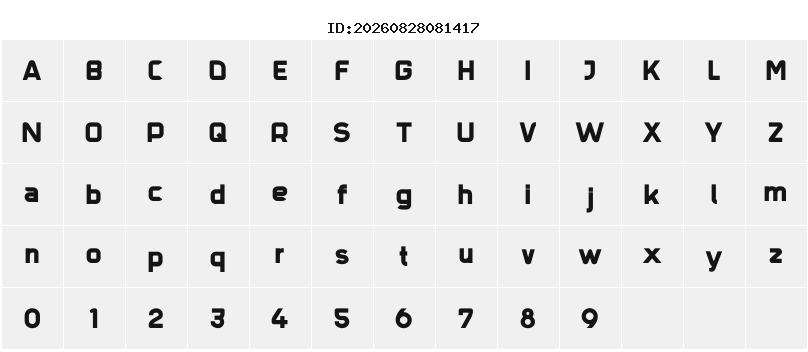
Trak Preview
• Font Name: Trak
• Font Style: Black
• Font ID: TransType 2 PC;TrakBlack;001.000;08/08/04 01:19:37
• Full Font Name: TrakBlack
• PostScript Name: TrakBlack
About Trak.ttf
Trak.ttf is a modern, elegant sans-serif font designed for ultimate readability and visual harmony. Perfect for branding, headlines, web design, and print materials.